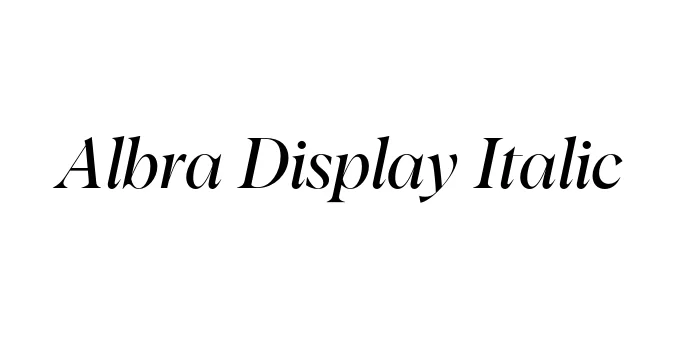
Albra Display Italic
Designed by BumBumType
| Category | Serif / Display |
| Designer | BumBumType |
Albra Display Italic is a sophisticated serif typeface that exemplifies a modern take on classical high-contrast serifs. Characterized by its elegant curves and sharp, refined terminals, the italic variant introduces a graceful slant that adds a distinct sense of movement and luxury to the broader Albra collection. It is particularly well-suited for high-end editorial work where a balance of tradition and modernity is required.
The typeface family bridges the gap between artisanal craftsmanship and contemporary digital demands. With its generous x-height and intricate detailing, it excels in large-scale display settings such as fashion branding and lifestyle magazines. Designers often choose this font to convey an atmosphere of timeless elegance while maintaining a sharp, cutting-edge professional aesthetic.
Albra Display Italic Best Uses
Ideal for high-impact headers and stylish pull quotes.
Establishes a premium identity for upscale products and boutique services.
Provides a sophisticated and romantic aesthetic for formal stationery.
Creates a striking visual presence for website hero sections and digital campaigns.